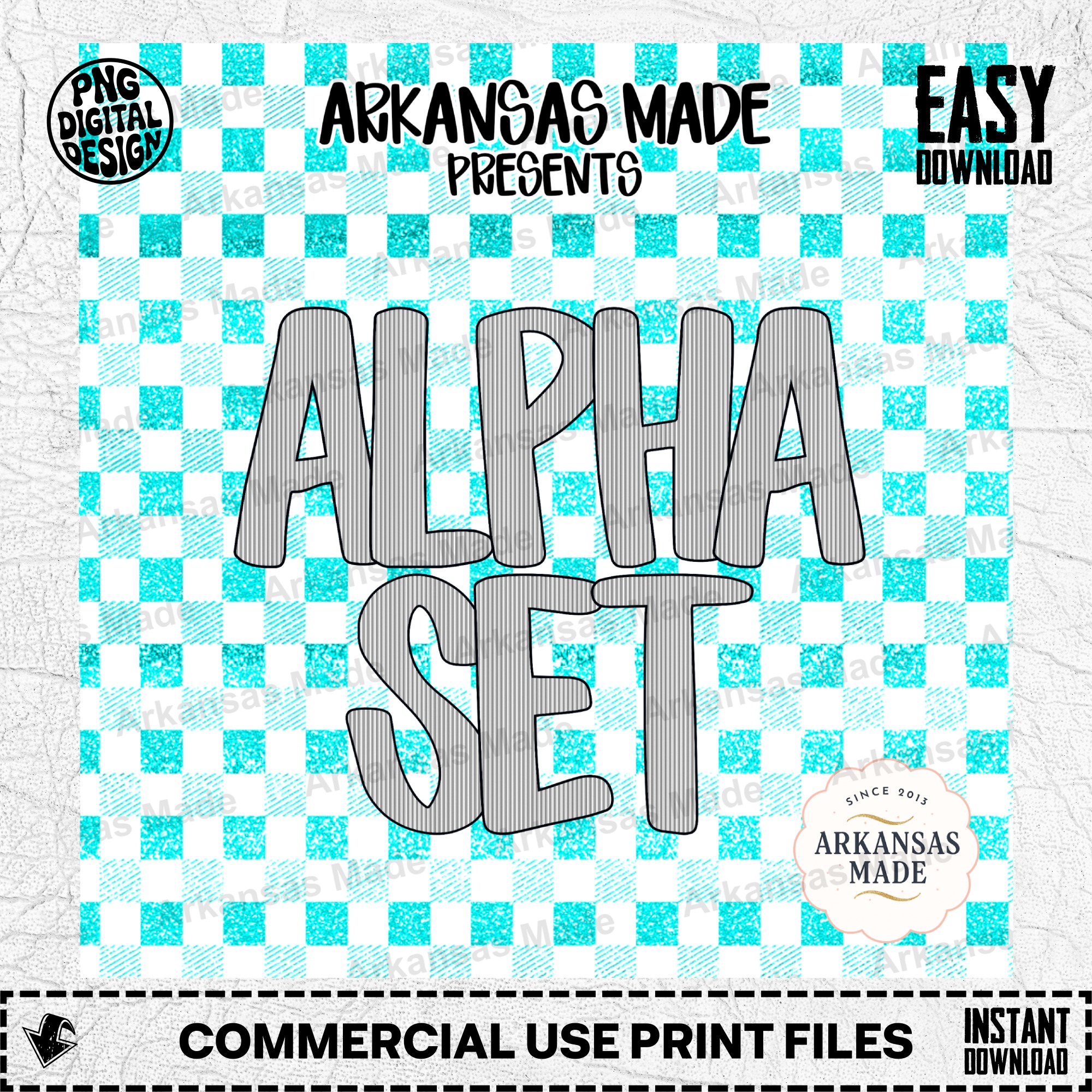
Unlock your creativity with this versatile Alpha Set PNGs featuring a stylish gray striped block font, perfect for sublimation and digital crafting. This instant download provides a full alphabet for all your design needs. This digital lettering clipart bundle offers a clean and modern aesthetic, ideal for graphic designers, crafters, and small business owners creating personalized items. Use these unique alphabet elements for t-shirt designs, custom mugs, vinyl decals, or educational materials, adding a professional touch to any DIY project. It’s an essential resource for anyone looking to enhance their creative toolkit.